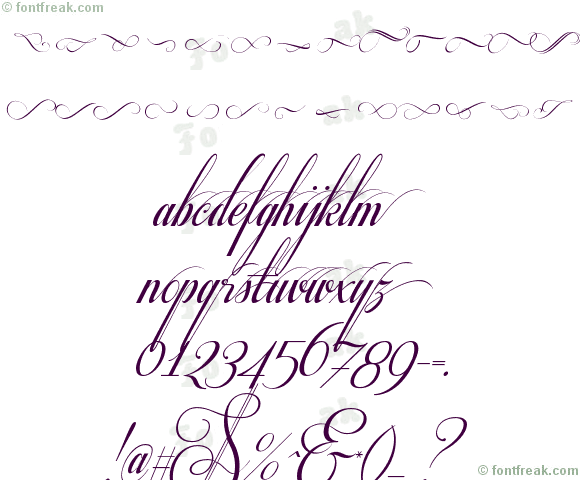
Respective Swashes
Respective Swashes Slanted
Respective Slanted
Respective
About Respective Swashes
Respective Swashes by Mans Greback is an elegant script font that captivates with its fluid strokes and decorative flair. This font showcases a slanted style, characterized by graceful curves and an artistic touch that adds sophistication to any design. The stroke weight is moderate, creating a balanced contrast that enhances legibility while maintaining an air of refinement. The spacing between the letters is generous, allowing for a graceful flow that is perfect for artistic applications.
This font is ideal for a variety of use cases. Wedding invitations benefit from its romantic aesthetic, making each invitation feel personal and luxurious. Similarly, it shines in greeting cards, where the swashes can add a heartfelt touch. Restaurant menus can leverage the elegance of Respective Swashes to create a unique dining experience, while branding materials for boutique shops can utilize this font to convey a sense of exclusivity and style. Additionally, it serves well in creative project titles and headers, drawing attention while maintaining an elegant presence.
The target audience for Respective Swashes includes graphic designers looking to elevate their projects, small business owners aiming to create a memorable brand identity, and content creators who seek to add a touch of elegance to their visuals. This font resonates particularly well with those in the wedding and hospitality industries, where aesthetics play a crucial role in customer perception.
What sets Respective Swashes apart is its ability to marry functionality with artistry. Its unique swashes and fluid design create a distinct personality that can transform ordinary text into a visual masterpiece. For those seeking a touch of elegance for personal projects, the Respective Swashes font free download offers an excellent opportunity to incorporate this stunning typeface into their creative endeavors.